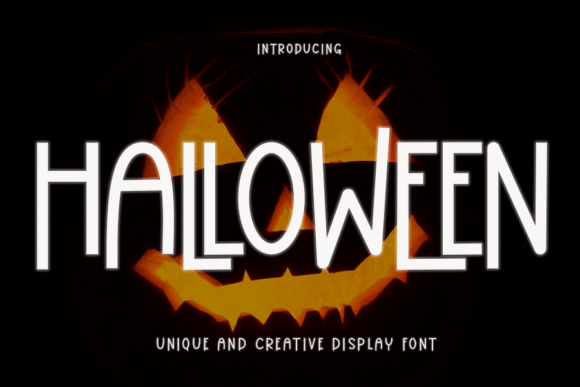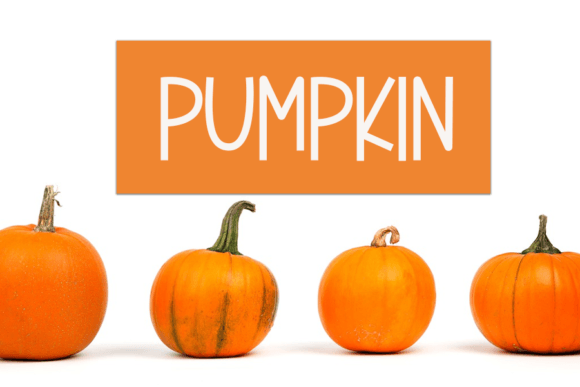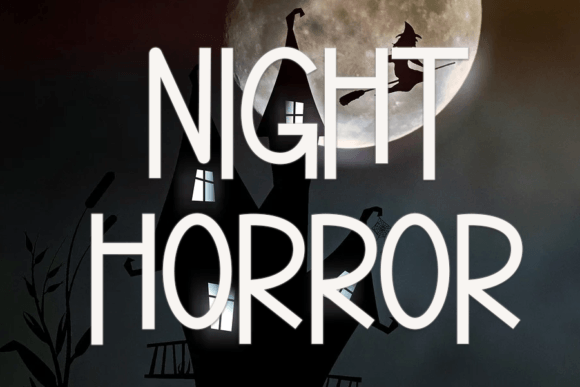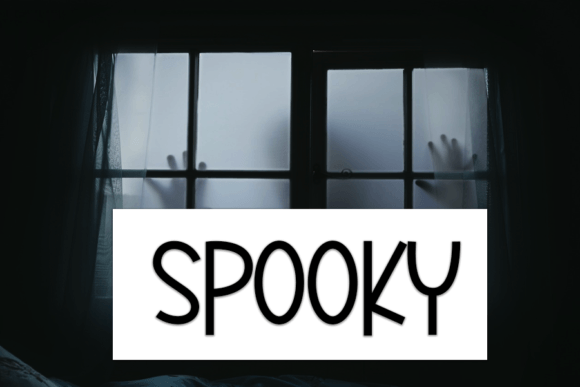
About Halloween Font
“Halloween” is a fun and friendly handwritten font that adds a playful and approachable vibe to your design projects. It’s a font that you can confidently incorporate into your creative work, and you’ll be delighted with the results.
The standout qualities of “Halloween” include its fun and friendly nature. Its handwritten style exudes a sense of whimsy and authenticity, making it a great choice for projects that aim to capture a festive and approachable spirit.
Imagine using “Halloween” for creating invitations to Halloween parties or event posters that need to convey the fun and excitement of the holiday. Visualize incorporating this font into social media graphics, greeting cards, or any project that requires a lighthearted and friendly touch. “Halloween” can also add a playful twist to children’s book illustrations, making it an excellent choice for kid-friendly design projects.
In conclusion, “Halloween” is more than just a font; it’s a design resource that infuses a fun and friendly atmosphere into your creative work. Its handwritten style makes it ideal for projects where a festive and approachable tone is desired. Embrace “Halloween” as a font that enhances your designs and brings a cheerful and playful quality to your projects, especially those related to the Halloween holiday.